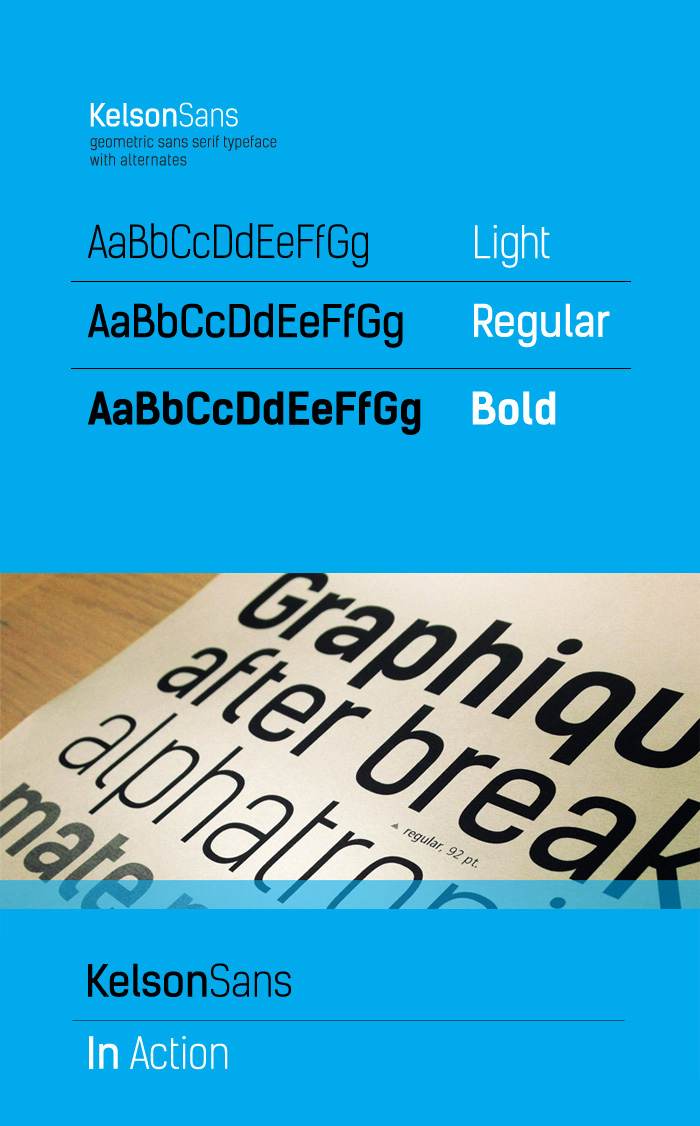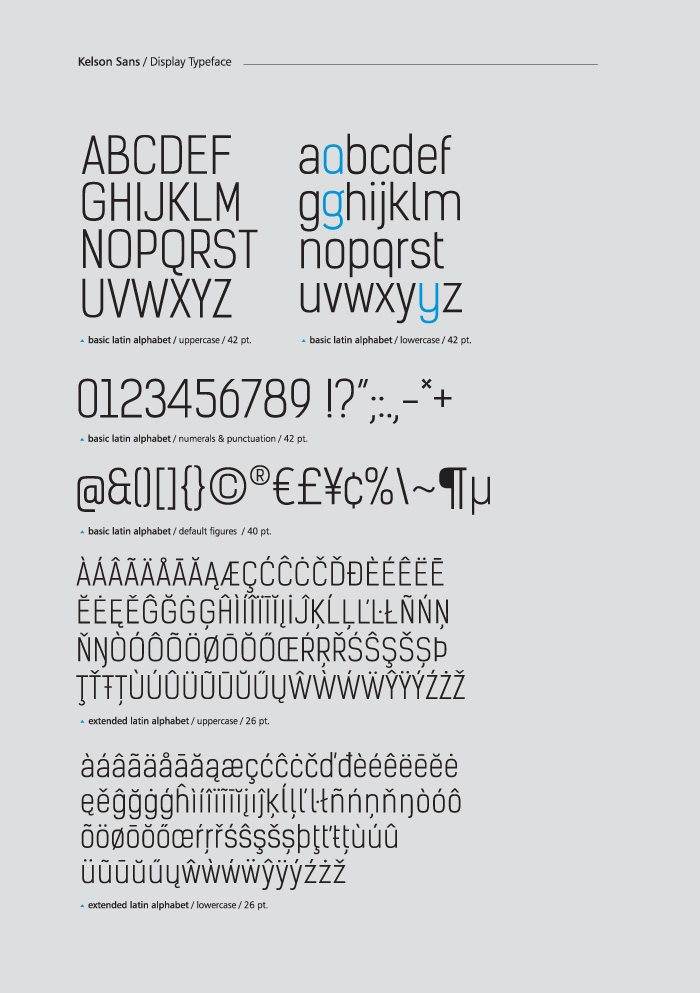
Free Font Of The Day #36 – KelsonSans
KelsonSans is remake of the original Kelson type family – designed by Bruno Mello from São Paulo, Brazil. The font is available in all formats and is applicable for websites, Adobe Photoshop and any other editor.